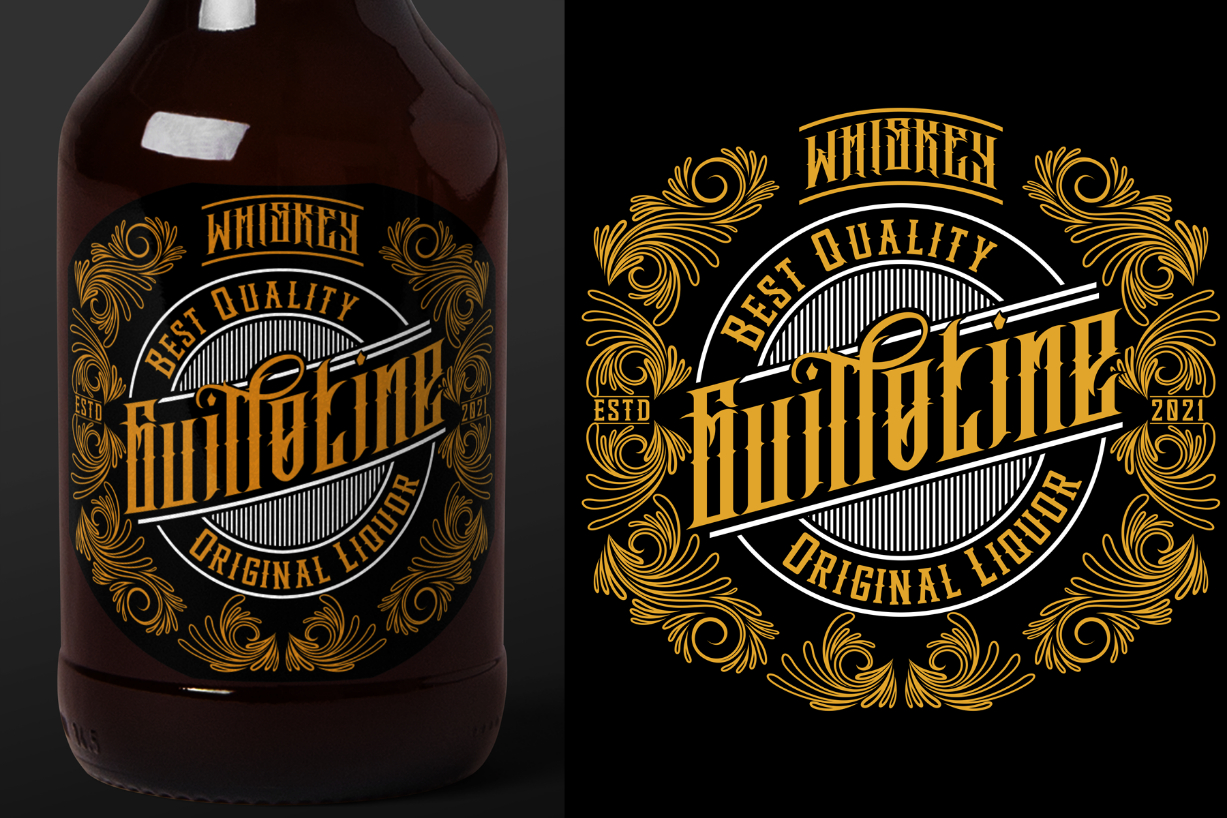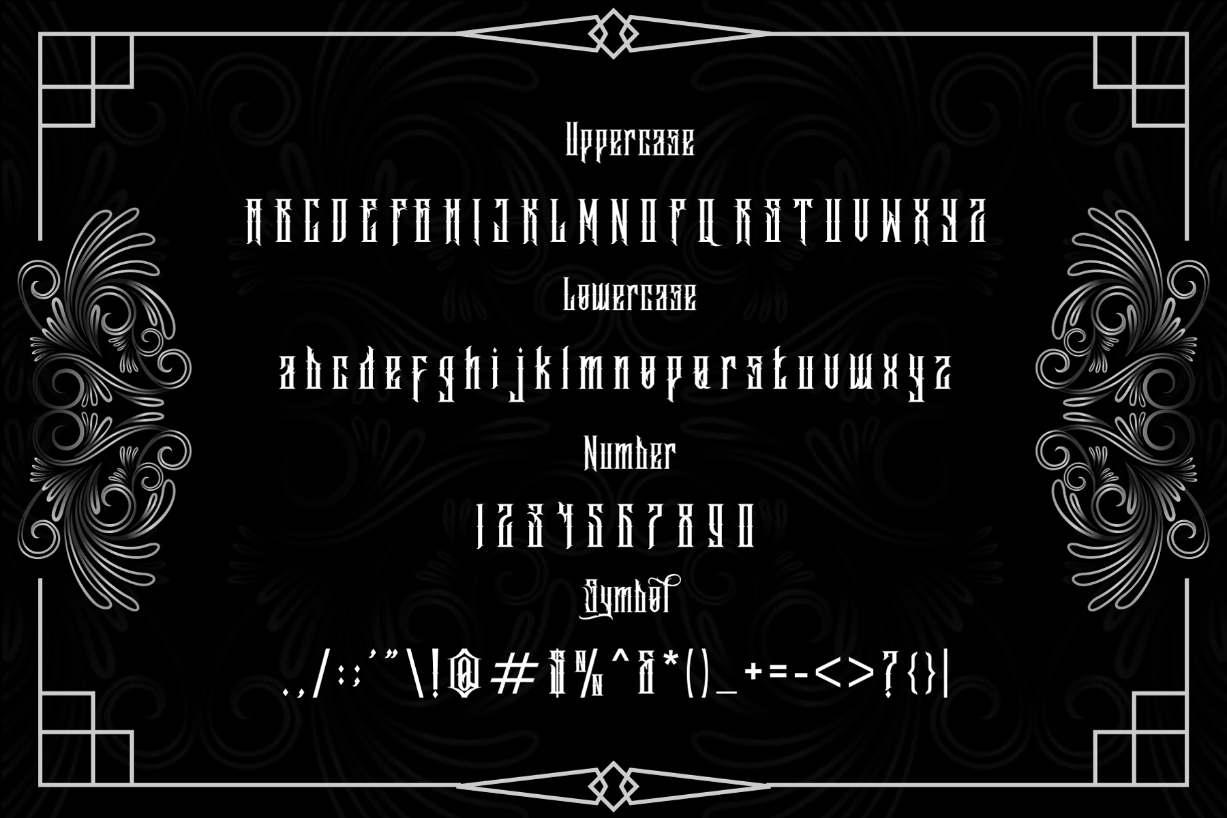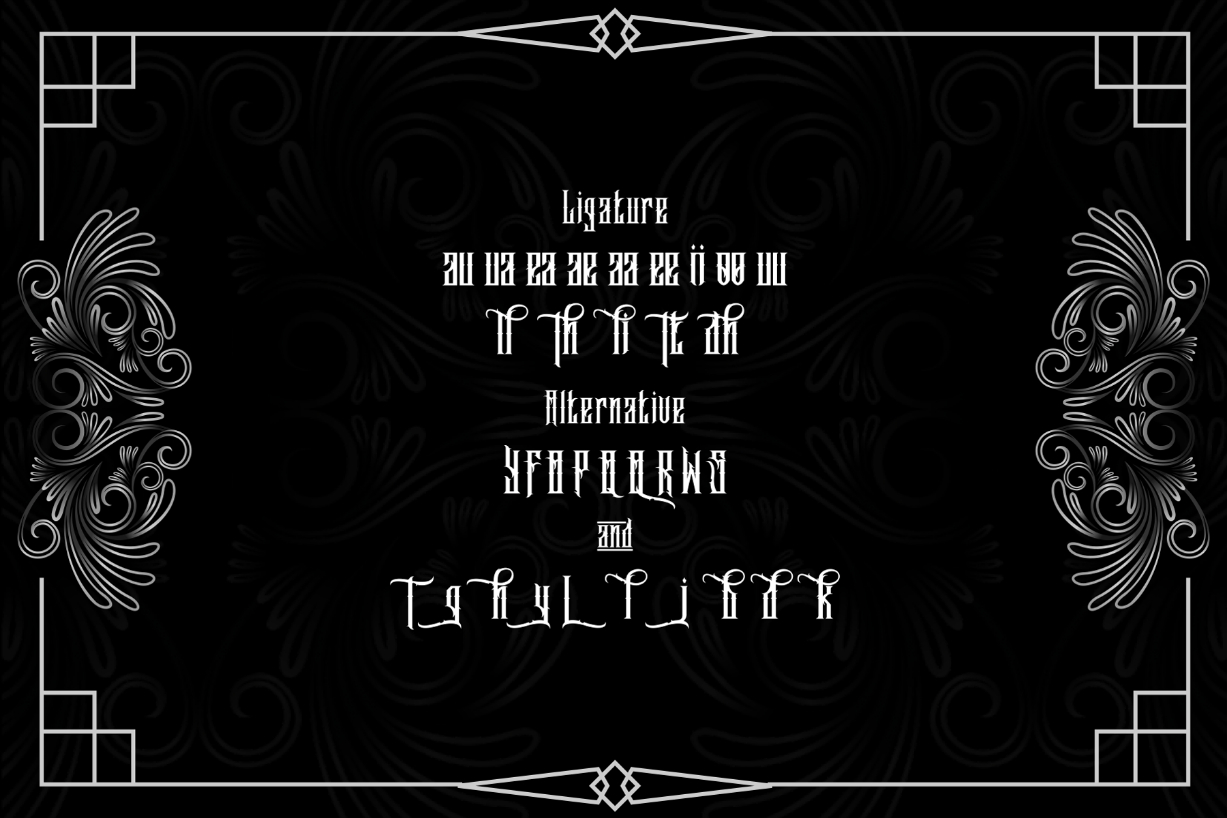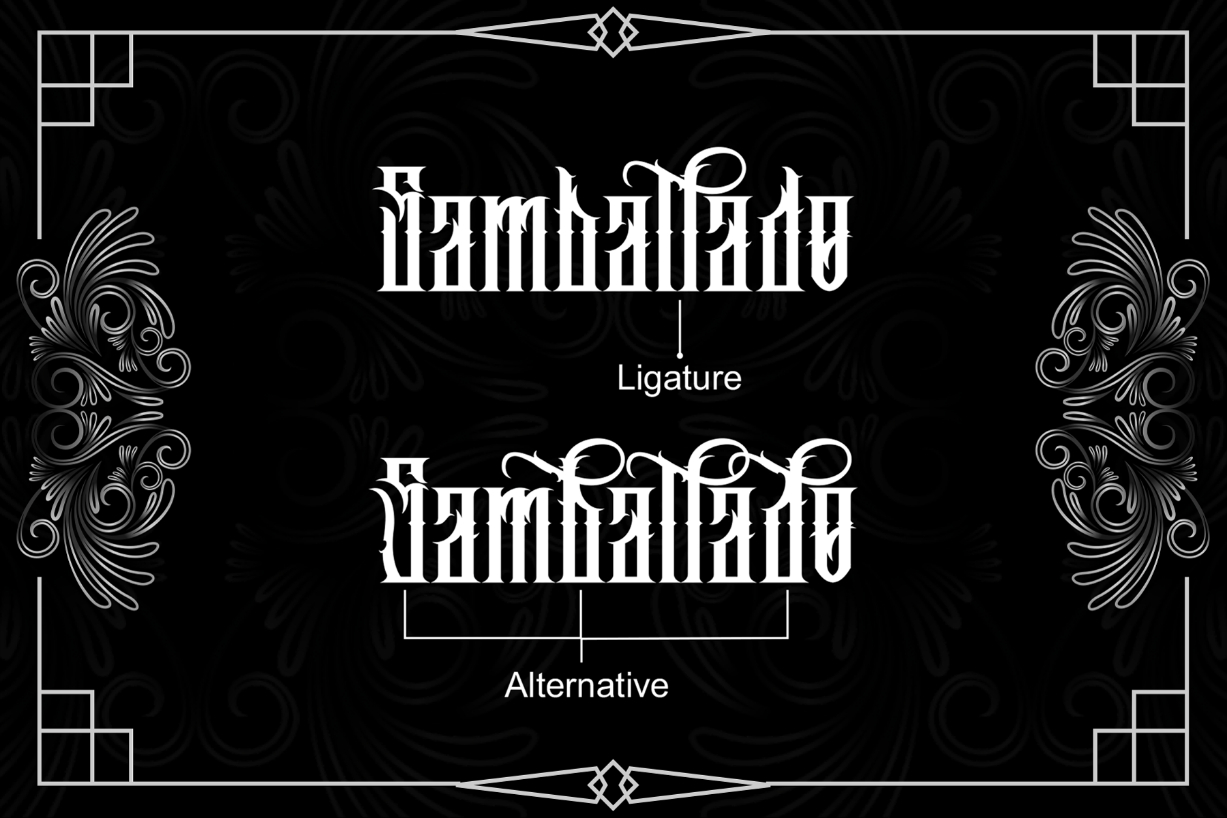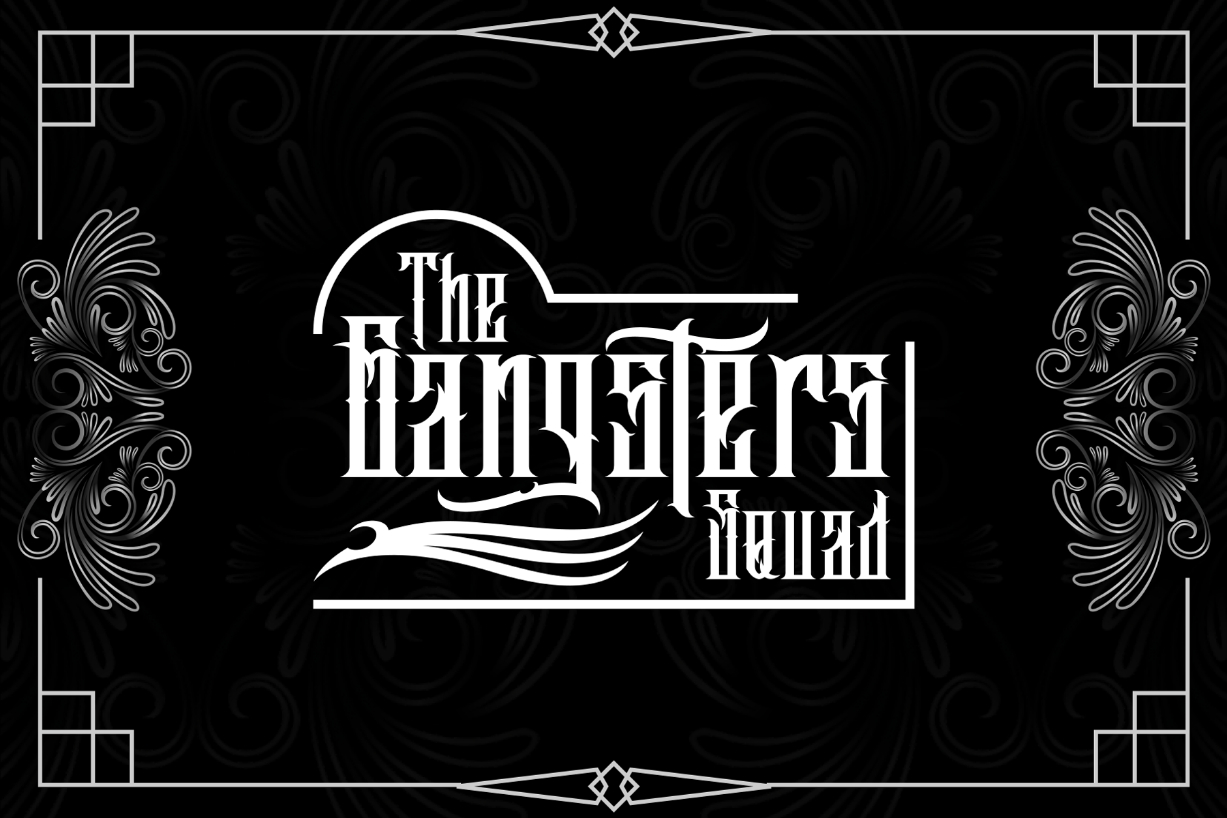
About Marthapura Font
Marthapura is a bold lettered blackletter font. Incredibly versatile, this font fits a wide pool of designs, elevating them to the highest levels. Add this font to your favorite creative ideas and notice how it makes them come alive!